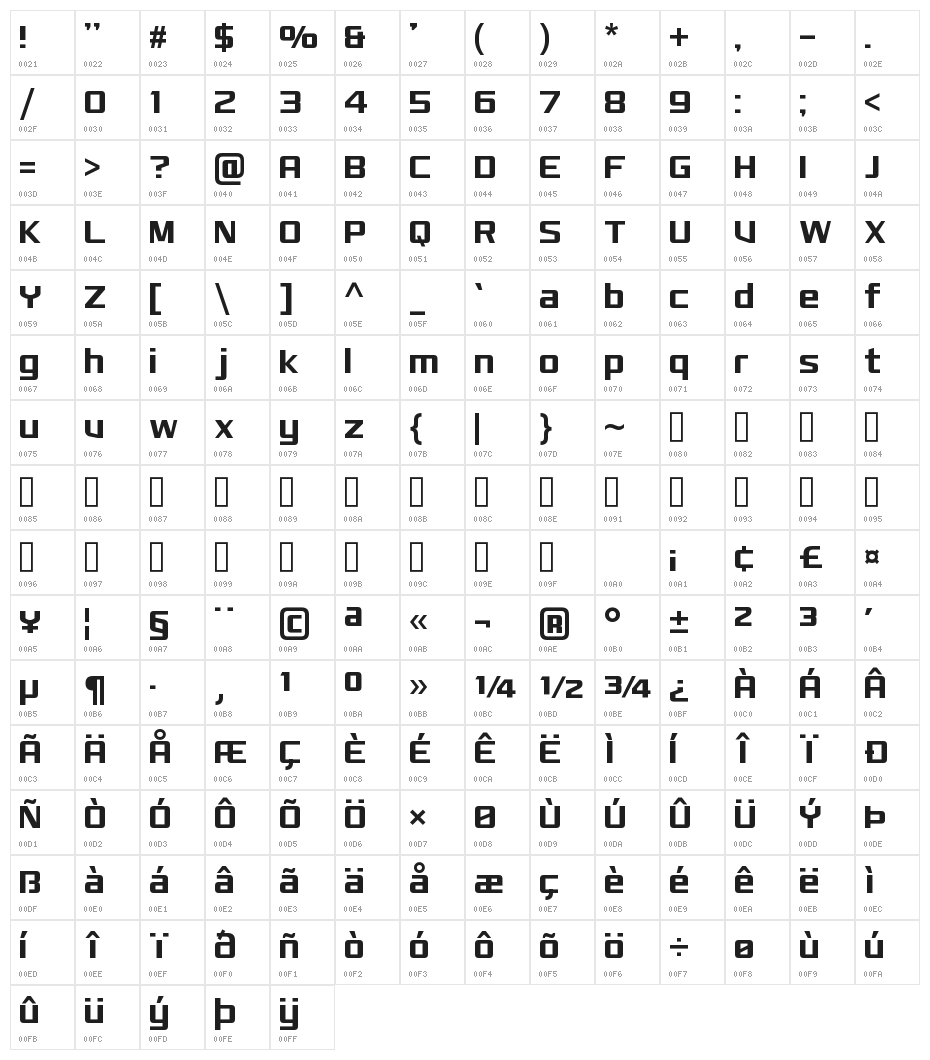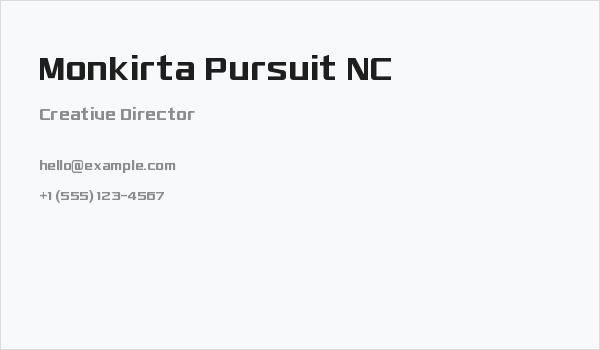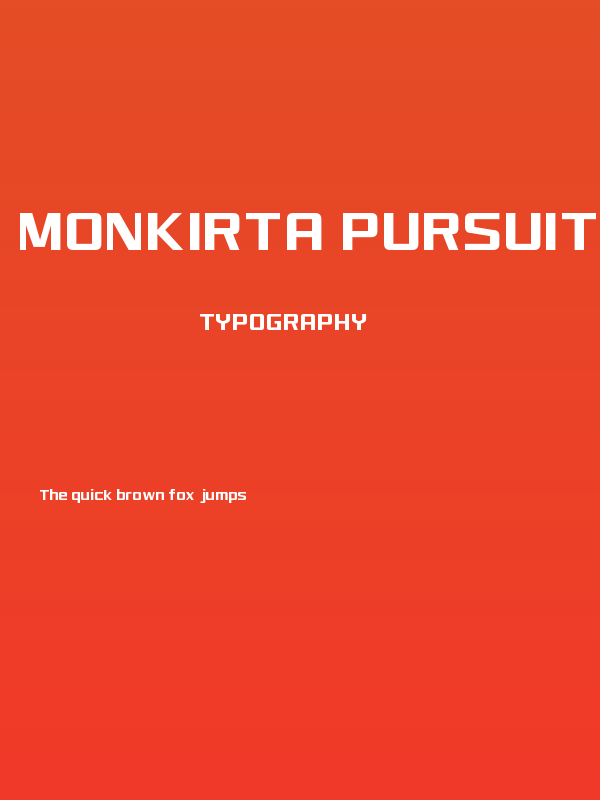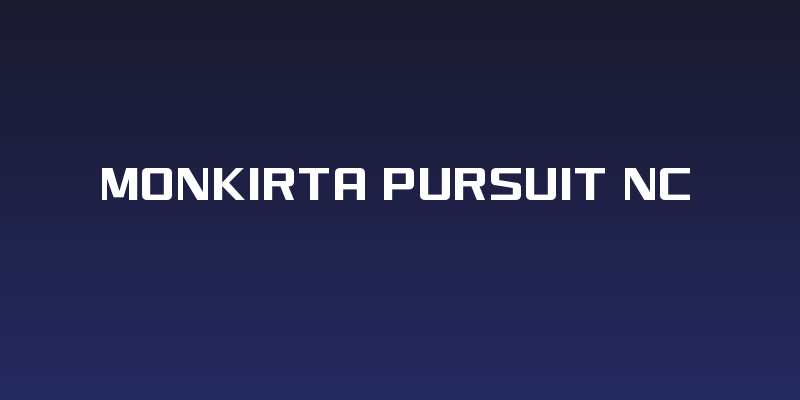
Monkirta Pursuit NC Font
Monkirta Pursuit NC Description
This font features a bold and modern design with clean, geometric lines. The uppercase letters are strong and assertive, while the lowercase letters maintain a consistent style that complements the overall aesthetic. The numbers are equally bold, ensuring readability and impact. Special characters are designed with the same attention to detail, making them suitable for various applications. The uniformity in stroke width across all characters gives it a cohesive look, ideal for making a statement in any design project.
Proposed ProjectsIdeal for branding, headlines, posters, and digital media where a strong, modern presence is needed.